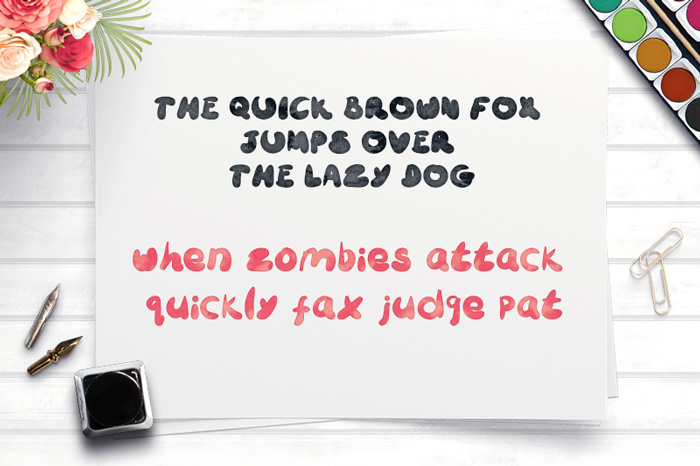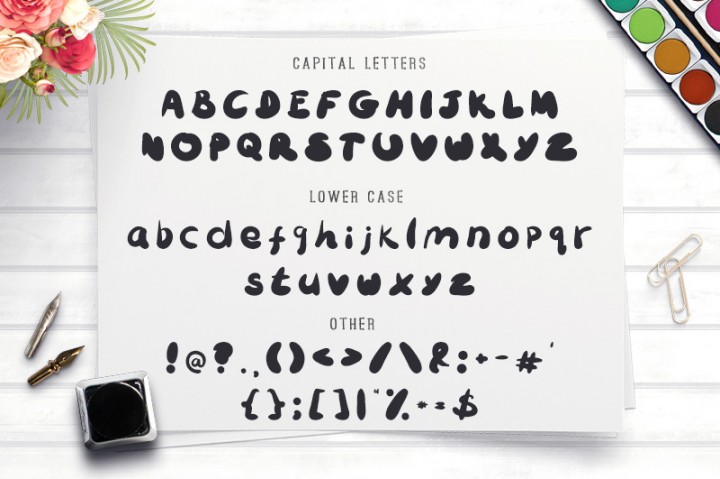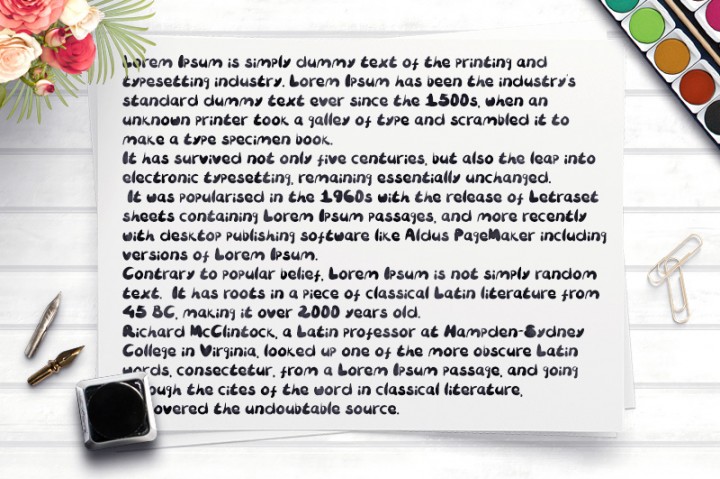
Bubbliest Font
Bubbliest Font the premium fonts, but now it is free at thehungryjpeg. Note that it is only free for 7 days to download, you can grab them for download. Bubbliest is a hand drawn cute little brush font, perfect for birthday invitations, greeting cards and other fun activities. Feel free to use it for your personal and commercial projects.
The font includes capital letters, lower case, numbers and some punctuation. Available in True Type format only.